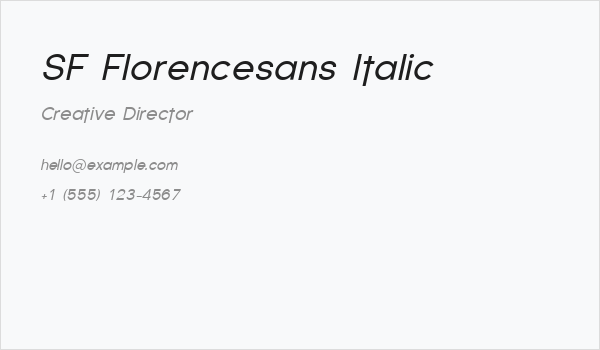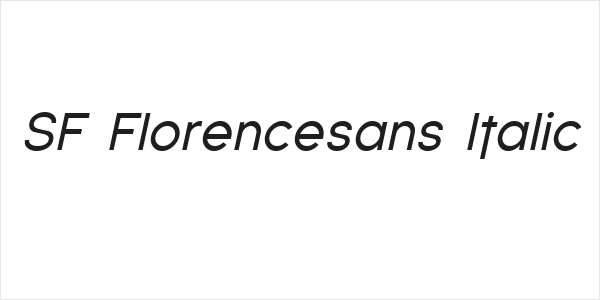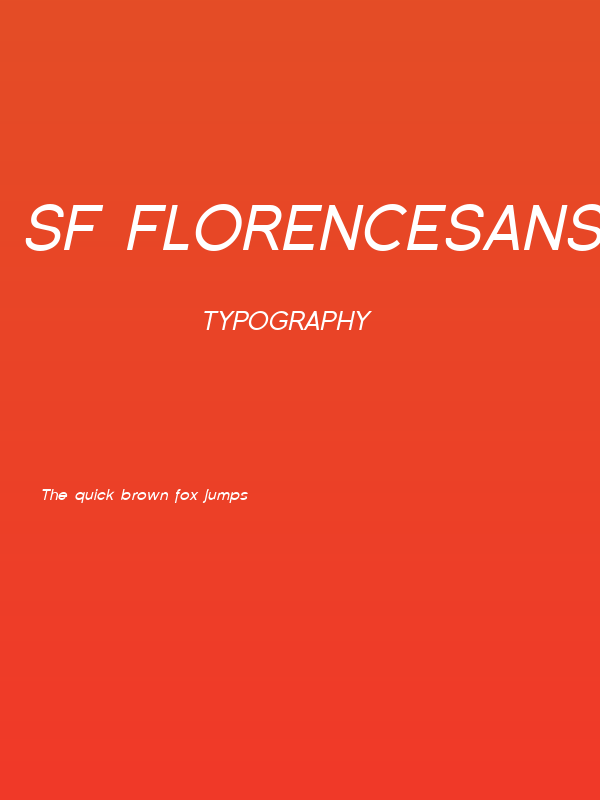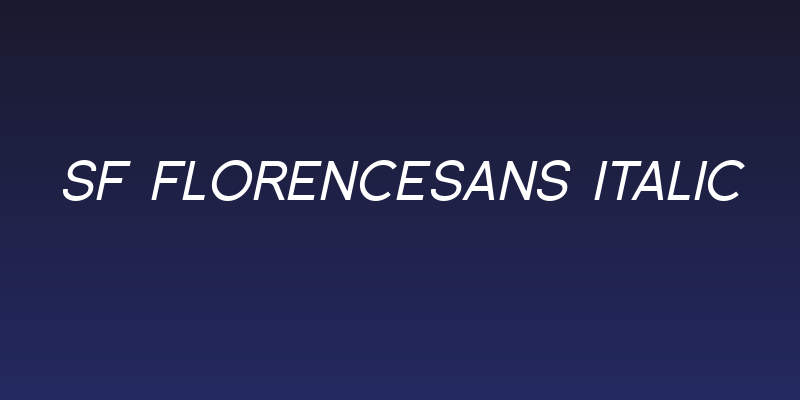
SF Florencesans Italic Font
SF Florencesans Italic Description
This font exhibits a sleek and modern sans-serif style with a distinct italic slant, giving it a dynamic and forward-leaning appearance. The characters are clean and streamlined, with smooth curves and a consistent stroke width that maintains readability. The uppercase and lowercase letters are well-proportioned, and the numerals are clear and straightforward. Special characters are included, enhancing its versatility for various applications. The overall design is minimalist yet sophisticated, making it suitable for contemporary design projects.
| Proposed Projects | Ideal for branding, advertising, digital interfaces, and editorial design where a modern and sleek appearance is desired. |